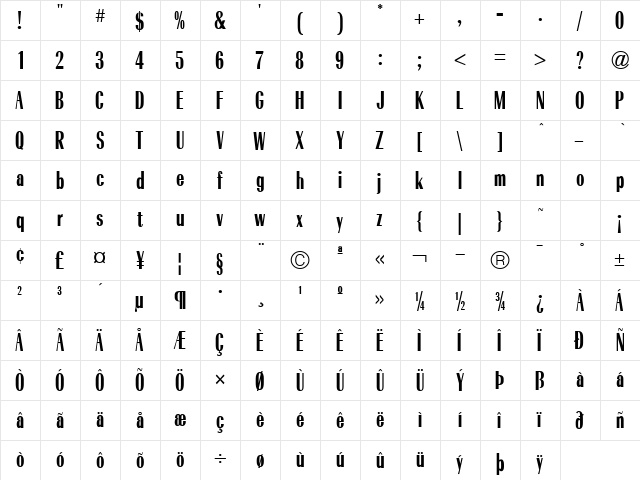
Radiant Bold Condensed Regular Font Preview
Design Context for Radiant Bold Condensed Typeface
Radiant Bold Condensed takes a measured approach to typography — its balanced proportions and neutral character make it a reliable workhorse for both digital and print work. Its bold stroke weight gives it real presence on the page. Its narrow stance lets it pack a punch even in space-constrained designs.